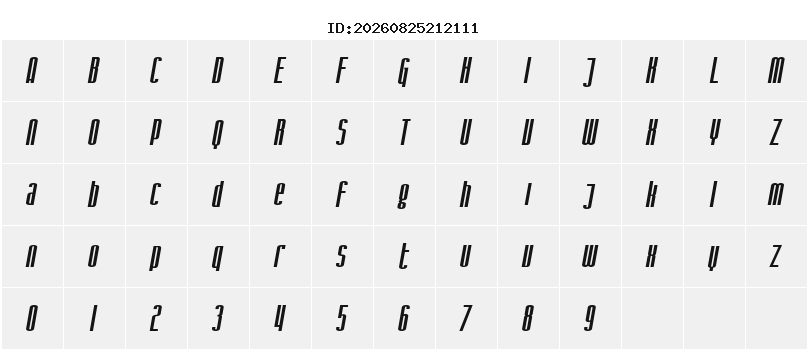
SF Iron Gothic Preview
About SF Iron Gothic.ttf
SF Iron Gothic.ttf is a modern, elegant sans-serif font designed for ultimate readability and visual harmony. Perfect for branding, headlines, web design, and print materials.